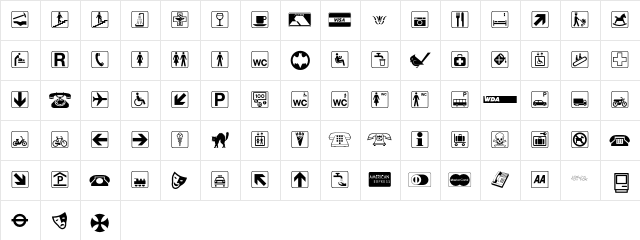
LogosPiFont Regular
Design Context for LogosPiFont Typeface
LogosPiFont is a composed and adaptable typeface that performs quietly and consistently across a wide range of design contexts.